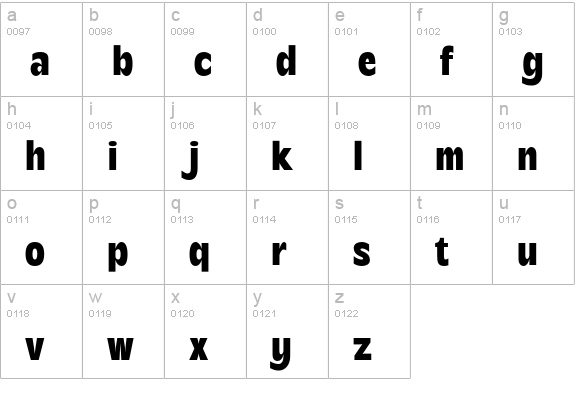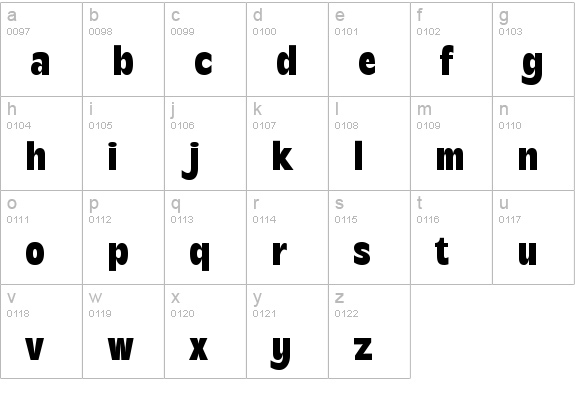
Becham font is a stunning display typeface that combines elegance with a touch of modernity. Its sleek lines and sophisticated curves make it perfect for a wide range of design projects, from invitations to branding materials. The versatility of Becham font allows it to shine in both digital and print applications, adding a touch of sophistication to any project.